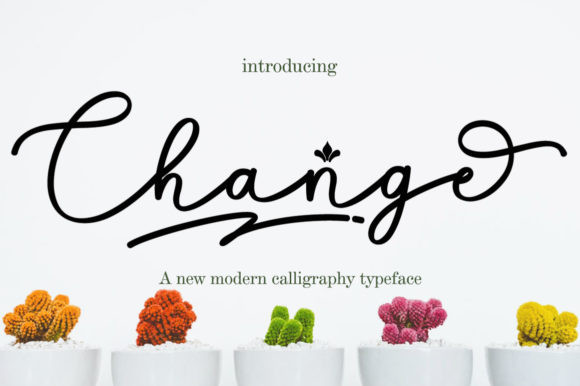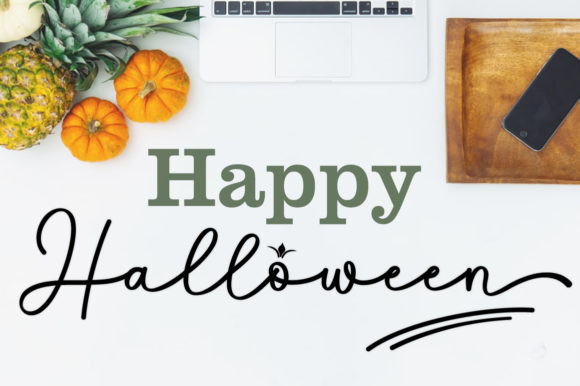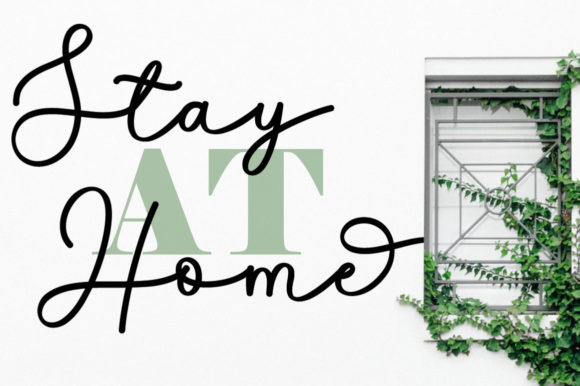
Change Font
Change is a bouncy and flowing handwritten font. Get inspired by with its authentic feel and use it to elevate a wide range of design projects to the highest level, be it branding, headings, wedding designs, invitations, signatures, logos, labels, and much more!